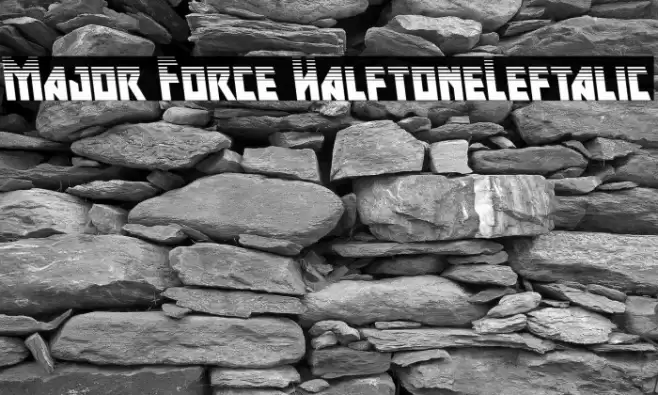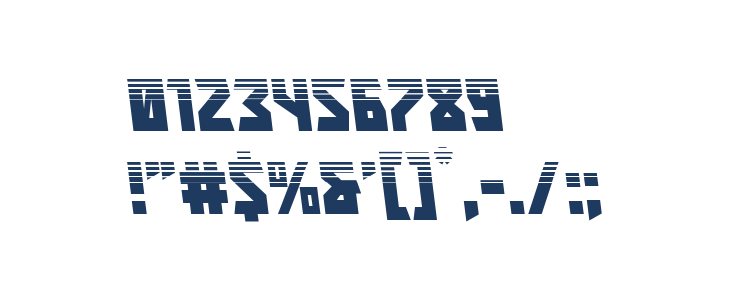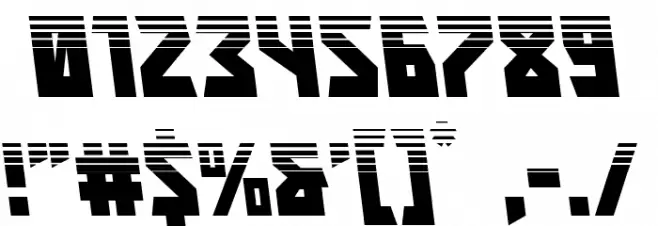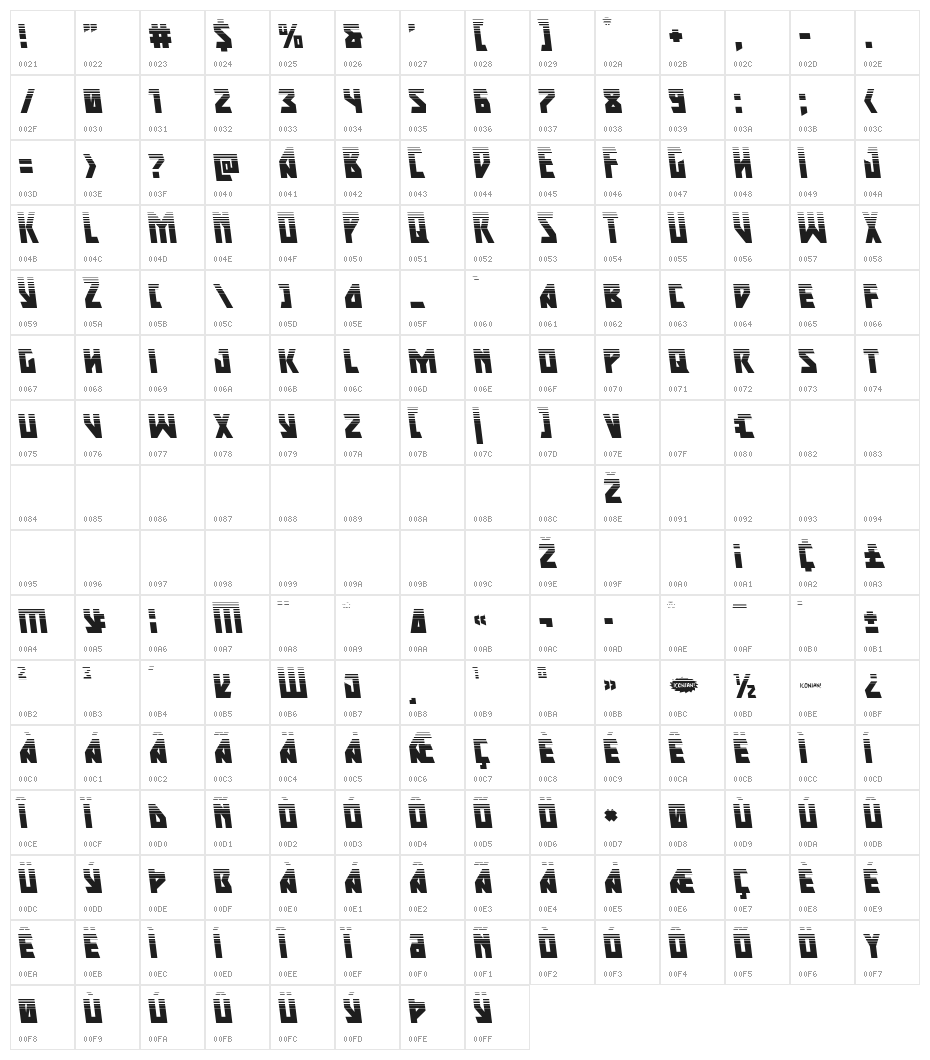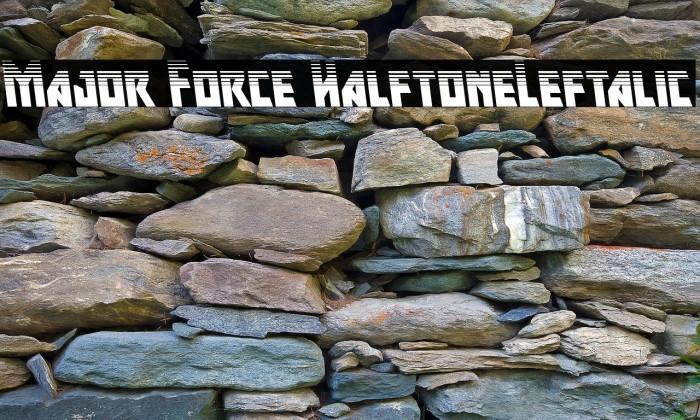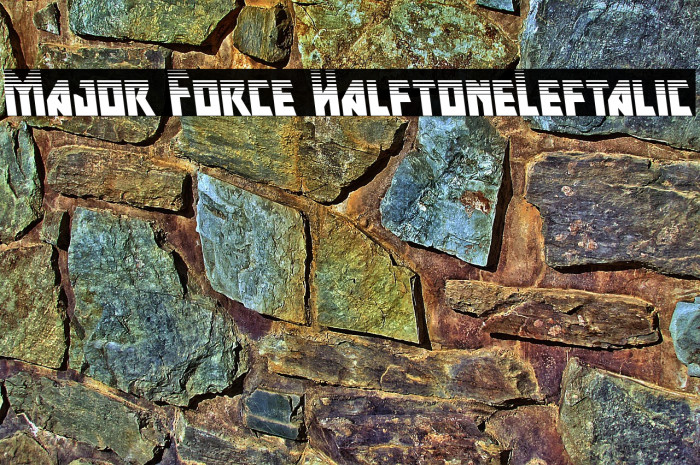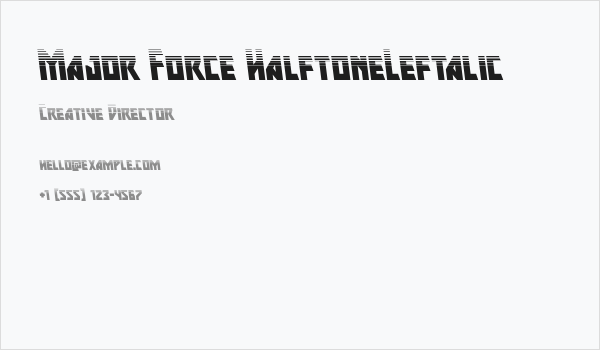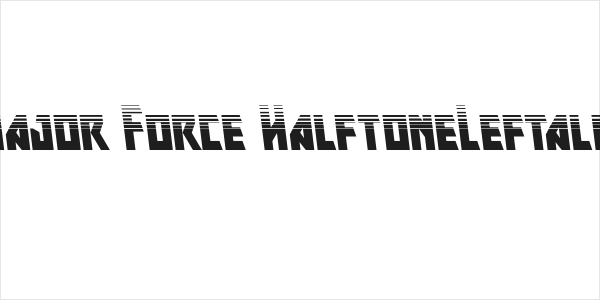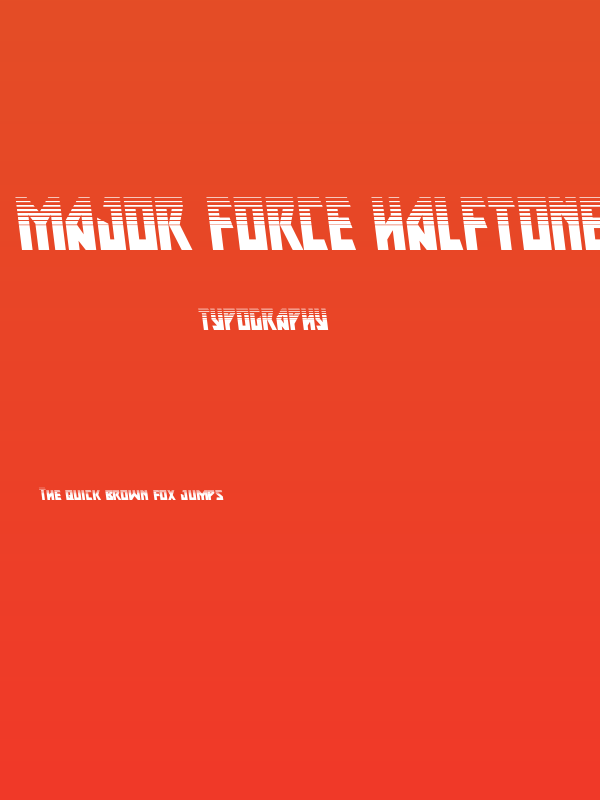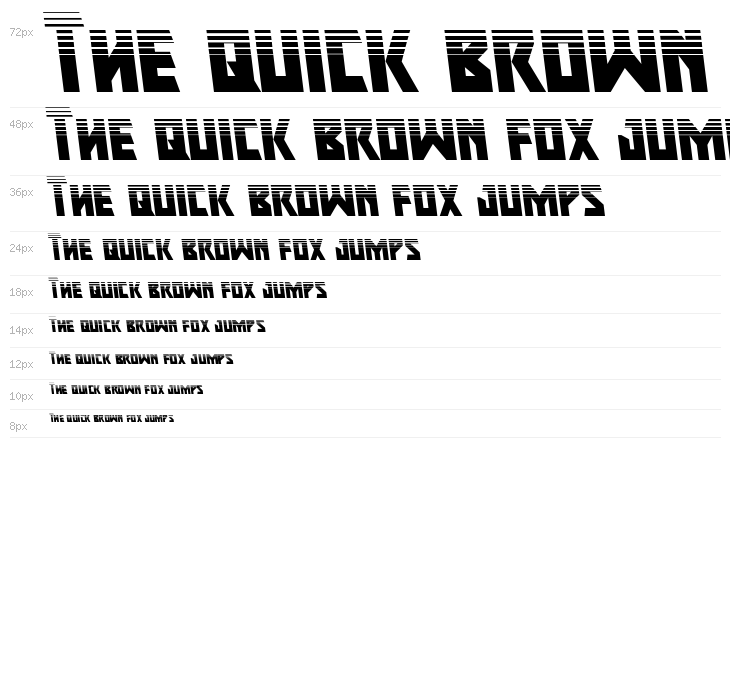
Major Force HalftoneLeftalic Font
Major Force HalftoneLeftalic Description
This font features a bold and striking design with a halftone effect that gives it a dynamic and futuristic appearance. The uppercase and lowercase letters are constructed with horizontal lines that create a sense of movement and energy. The geometric shapes and sharp angles contribute to its modern and edgy style. The numerals and special characters maintain the same aesthetic, ensuring consistency across all elements. This font is ideal for projects that require a bold statement, such as posters, album covers, or branding materials that aim to capture attention and convey a sense of innovation.
A bold, futuristic font with a halftone effect and geometric design from Uncategorized fonts.
- Proposed Projects: Ideal for posters, album covers, branding, and any project needing a bold, modern look.